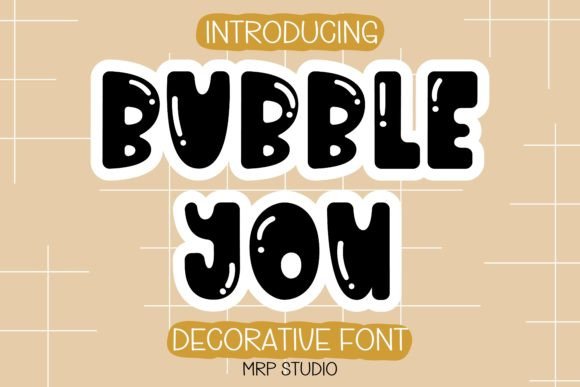
The Cutest Font You’ll Ever Use: Bubble You Font
Have you ever been working on a project and just couldn’t find the right font to bring it to life? I recently had one of those moments while designing a birthday party invitation for my niece. I wanted something cute, playful, and fun, but everything I tried seemed either too boring or too over-the-top. That’s when I stumbled upon the Bubble You Font! 🍰
A Personal Review of Bubble You Font
I’m so glad I found Bubble You Font, as it was exactly what I needed to make my project stand out. Here’s what I love about it:
• ✨ Cute and Adorable Design: The font is designed in a super cute and adorable decorative style that immediately adds a fun touch to any project.
• ✅ Perfect for Child-Related Projects: It’s ideal for projects like back to school, birthday party decorations, and more.
• 💕 Bright and Fun: The font brings a bright and fun vibe that’s perfect for making your projects more engaging and lively.
While I absolutely love Bubble You Font, there are a few small quirks to be aware of:
• ⚠️ Legibility at Small Sizes: Like many decorative fonts, it can be a bit tricky to read at very small sizes. It’s best used at larger sizes where its details can shine.
• 🤔 Limited Use in Formal Projects: Due to its playful nature, it might not be the best choice for formal or professional projects.
Bubble You Font was created with the intention of spreading joy and fun through typography. The designer, inspired by childhood memories of blowing bubbles and watching them float away, aimed to capture that sense of freedom and playfulness in a font. The result is a beautiful, bubbly font that’s perfect for any project needing a touch of whimsy.
What type of projects is Bubble You Font best suited for? Bubble You Font is perfect for child-related projects, birthday party decorations, back to school materials, and any project that needs a bright and fun touch.
Is Bubble You Font available in different styles or weights? Currently, Bubble You Font comes in its adorable standard style. You might find variations or similar fonts from the same designer or others.
Bubble You Font is more than just a font; it’s a way to add a dash of fun and playfulness to your projects. Whether you’re a designer, crafter, or hobbyist, this font is sure to bring a smile to your face and make your work stand out. So go ahead, give it a try, and see how it transforms your creative ideas!